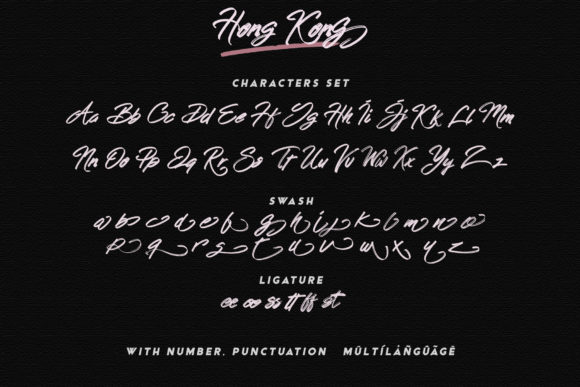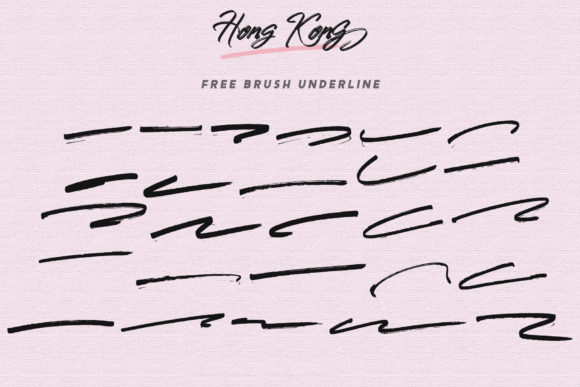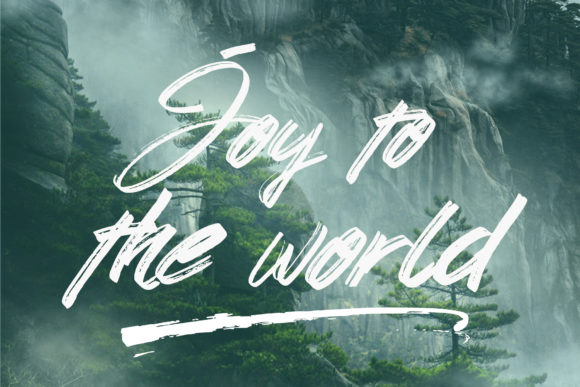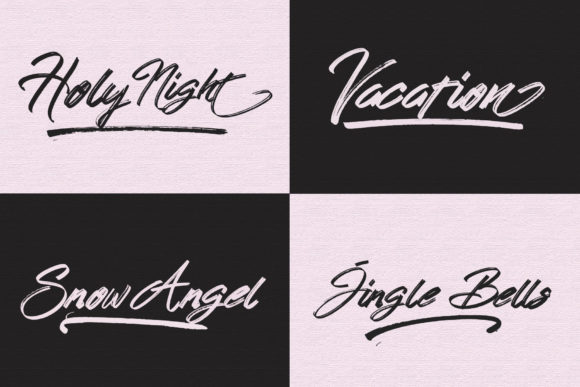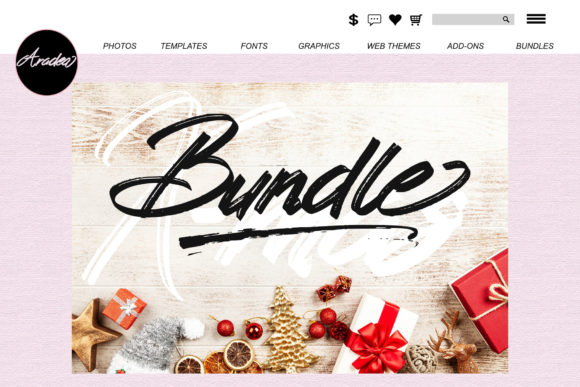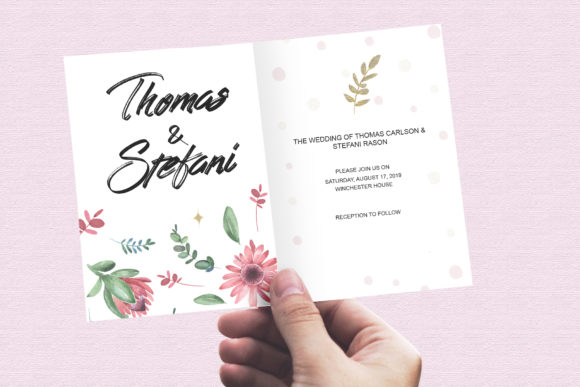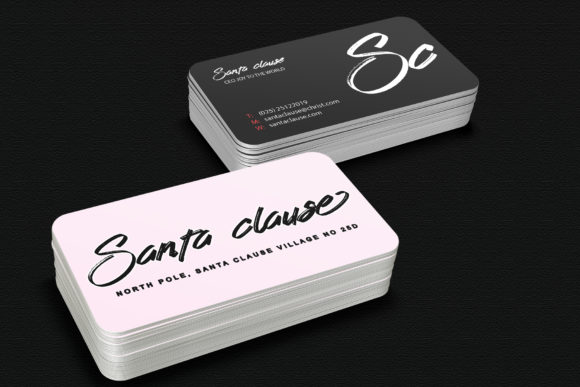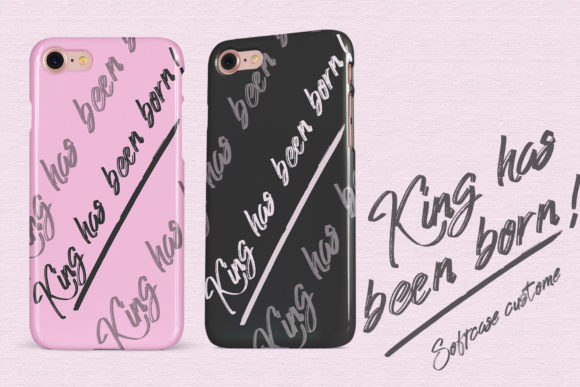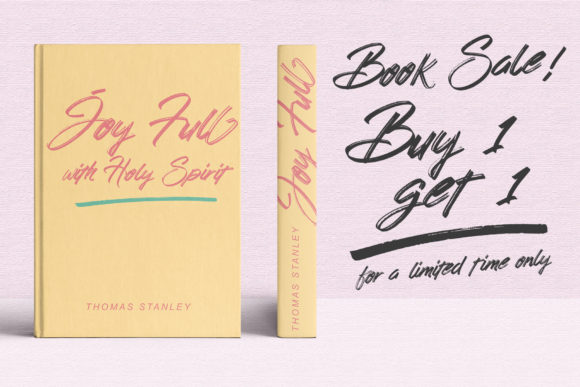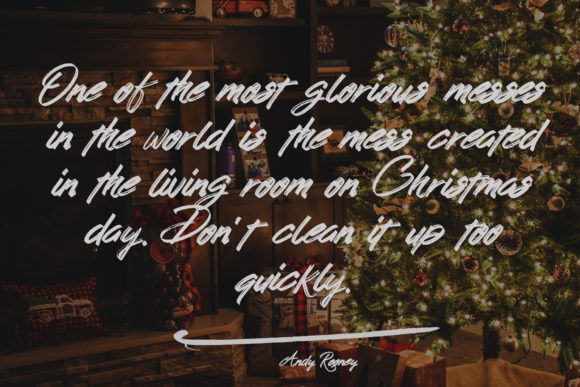
HomeScript FontsHong Kong Font Script Fonts Hong Kong Font FacebookXPinterestWhatsApp Hong Kong Font Poster 2 Hong Kong Font Poster 3 Hong Kong Font Poster 4 Hong Kong Font Poster 5 Hong Kong Font Poster 6 Hong Kong Font Poster 7 Hong Kong Font Poster 8 Hong Kong Font Poster 9 Hong Kong Font Poster 10 Hong Kong Font Poster 11 Hong Kong Font Poster 12 About Hong Kong Font Hong Kong is an elegant, yet powerful handwritten font. Get inspired by its unique and authentic style. DOWNLOAD ON CREATIVE FABRICAThis font is sold and delivered by Creative Fabrica. Font Canyon may earn a commission if you buy through this link. People also explored Arrow Love Dingbat Font Allase Font Venture Point Font Brownis Cake Font Gamtera Font Kathia Script Font Summer Sunshine Font Karlostine Font Gorwel Font 330 0 TagsHong Kong Font Previous articleRollingdore FontNext articleTropical Summer Font LEAVE A REPLY Cancel reply Comment: Please enter your comment! Name:* Please enter your name here Email:* You have entered an incorrect email address! Please enter your email address here Website: Save my name, email, and website in this browser for the next time I comment. Personal Use Free Blessed Font Personal Use Free Read more about this font Arnitta Callina Personal Use Free Read more about this font New System Personal Use Free Read more about this font Shelly Personal Use Free Read more about this font BLOG Modern Sans-Serif Fonts That Brands Love in 2025 In 2025, modern sans-serif fonts remain a top choice for brands looking to project clarity, professionalism, and... Exploring Font Trends How to Install and Use Fonts on Windows, macOS, and Web Projects Free vs Paid Fonts: Why Investing in Premium Fonts Is Worth It